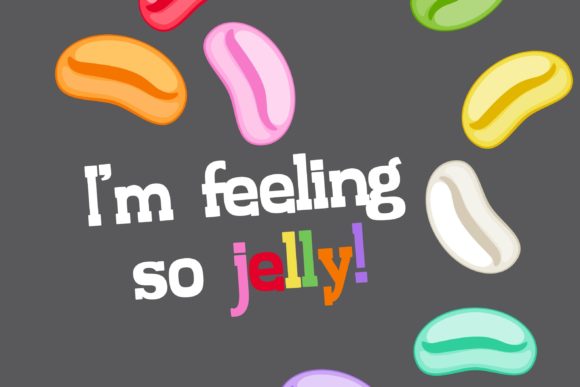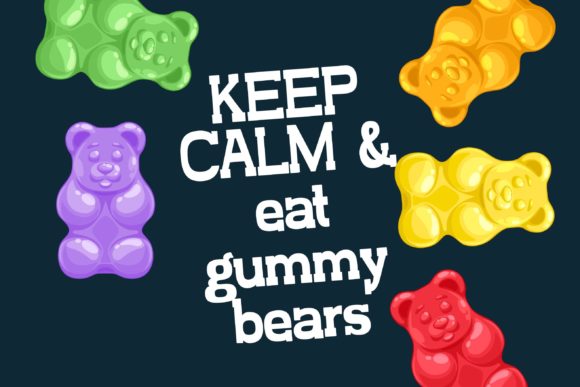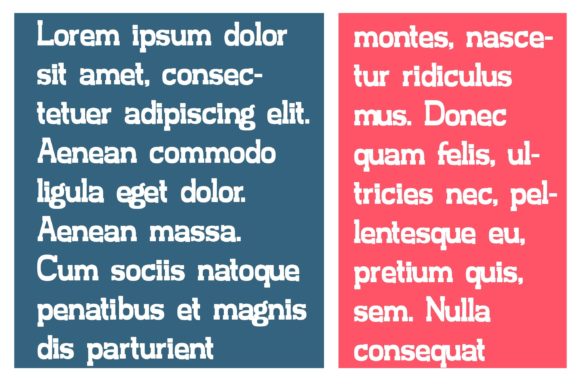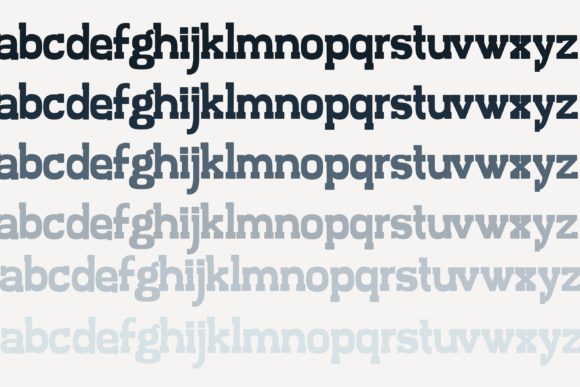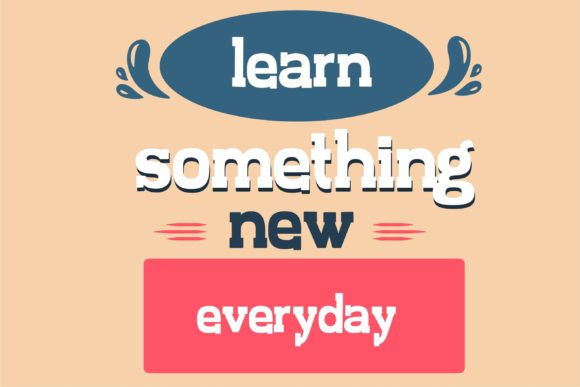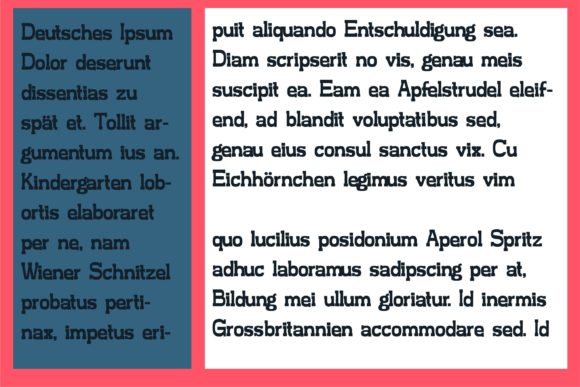
Introduction to Candydance Font
Remember the moment you stumbled upon the perfect font for your creative project? The one that perfectly captures the essence of your design and leaves a lasting impression on your audience? For many designers, this moment is a game-changer. And, for those who haven’t experienced it yet, we’re excited to introduce you to the Candydance Font – a delightful addition to your design resource library.
This fun and thick lettered serif font is a breath of fresh air for designers looking to add a touch of whimsy to their work. With its high-quality design and versatility, the Candydance Font is perfect for product packaging, branding projects, magazine covers, social media, and even wedding invitations. Whether you’re working on a free download or a paid project, this font is sure to elevate your design to the next level.
Key Features of Candydance Font
- Candydance Font boasts a unique, whimsical design that’s sure to add a touch of personality to your creative project.
- This creative font is perfect for designers and artists looking to add a touch of sweetness to their projects, from wedding invitations to children’s book illustrations.
Honest Review: Candydance Font
As a designer, I’m always on the lookout for high-quality fonts that can elevate my creative projects. The Candydance Font caught my eye, and I decided to give it a try.
- High-quality design: The Candydance Font has a unique and playful design that’s perfect for projects that need a touch of whimsy.
Any limitations ⚠️
- Limited font styles: The Candydance Font only comes in a few styles, which might limit its versatility for more complex projects.
Overall, I think the Candydance Font is a great addition to any designer’s toolkit. Its unique design and high-quality feel make it perfect for creative projects, and the transparent background feature is a huge plus. While it may have some limitations, I think it’s a great resource for designers who want to add a touch of whimsy to their work.
The Candydance Font is perfect for creative projects that require a playful and whimsical touch. Use it to create titles, headings, and labels for children’s books, birthday party invitations, and other fun designs. The font’s transparent background makes it easy to use on any background color or image.
Is the Candydance Font suitable for high-quality print projects?
Yes, the Candydance Font is designed to be high-quality and suitable for print projects. It has been carefully crafted to ensure that it looks great at various font sizes and resolutions. However, please note that the quality of the print will also depend on the printing method and paper quality used.